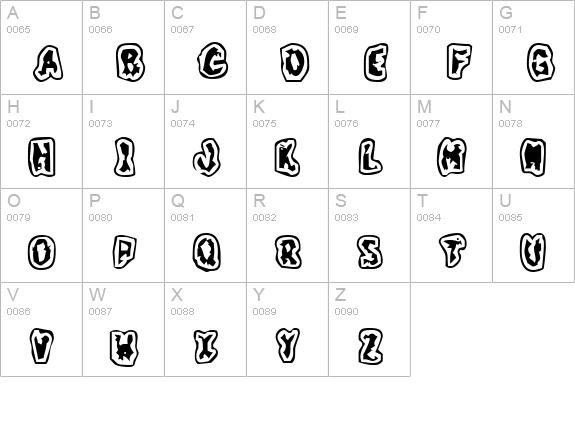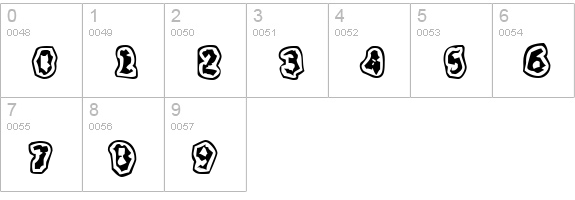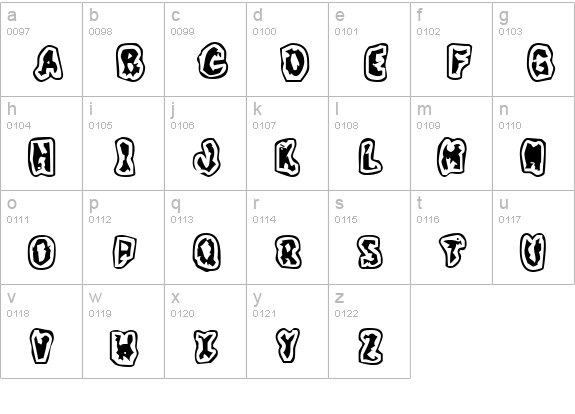
GrungeTastik Font Details
Introducing GrungeTastik font, a rebellious and edgy typeface that perfectly captures the raw energy of the grunge genre. This font is a bold statement with its rough edges and distressed appearance, giving off a sense of urban grit and attitude. GrungeTastik is ideal for projects that require a touch of grunge aesthetic, such as music posters, album covers, and streetwear branding. Its unique style adds a rebellious charm to any design, making it stand out from the crowd. Best of all, GrungeTastik font is completely free to download at FontsMarket.com. You can easily add this versatile typeface to your collection and start incorporating its edgy vibe into your creative projects. Don't miss out on this opportunity to give your designs an extra dose of grunge with GrungeTastik font.